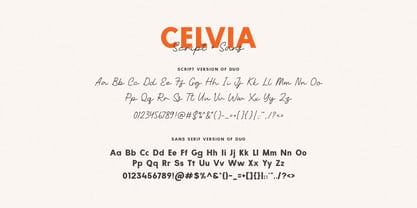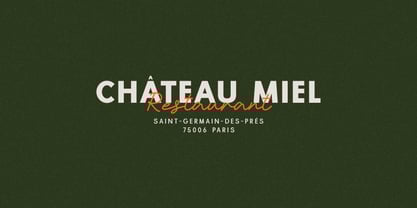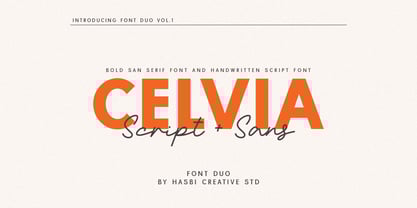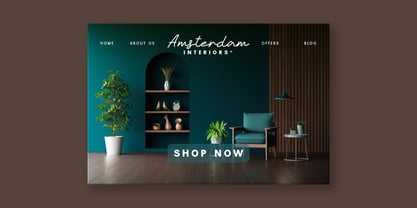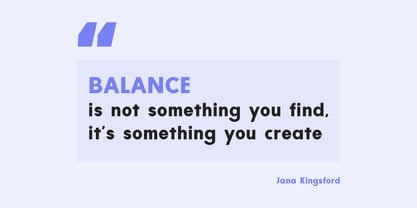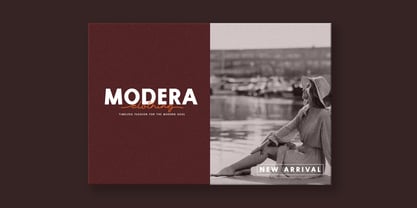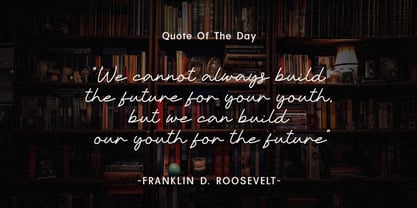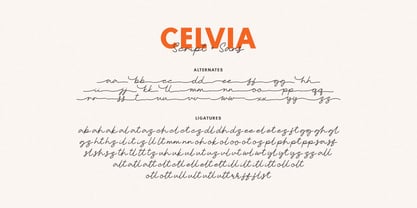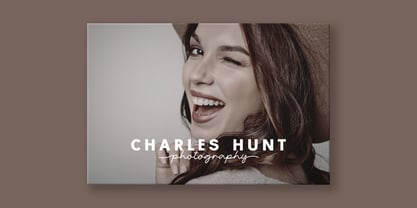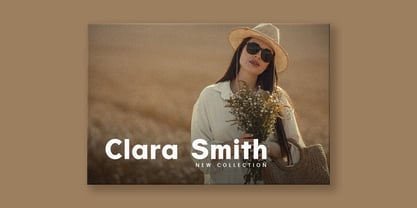
Celvia
by Hasbi Creative
The Celvia Font Family was designed by Hasbi Azmi and published by Hasbi Creative. Celvia contains 2 styles and family package options.
Introducing Celvia, a modern and elegant font duo that combines a soft handwritten script with a bold, clean sans serif. Designed for effortless pairing, Celvia offers beautiful contrast and harmony between its two styles, making it perfect for fashion branding, editorial layouts, social media, packaging, and logo design.
Whether you're creating a chic fashion label, a wedding stationery suite, or a personal brand identity, Celvia gives you the flexibility and charm to elevate your visuals with sophistication.
- Uppercase & Lowercase
- Numbers & Punctuation
- Ligatures & Alternates (Script)
Celvia — where softness meets structure in perfect harmony.